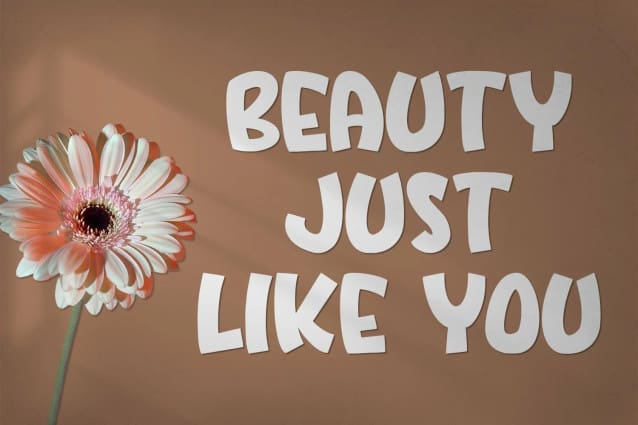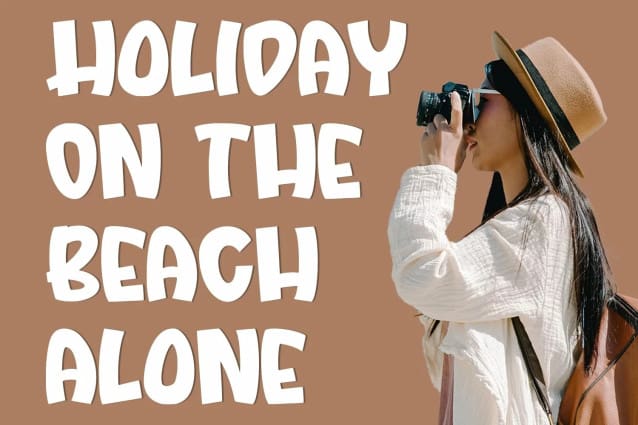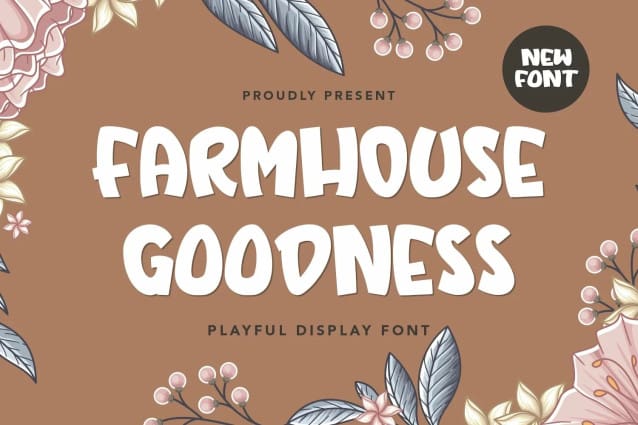
Farmhouse Goodness Font
Farmhouse Goodness – Playful Display Font that contains lowercase, uppercase, and symbol, and also supports multi-language. There are a lot of ligatures in this font. This Font also comes with ligatures, alternates, and many more. this font is suitable for fashion, branding, catalog, and other design that you want.